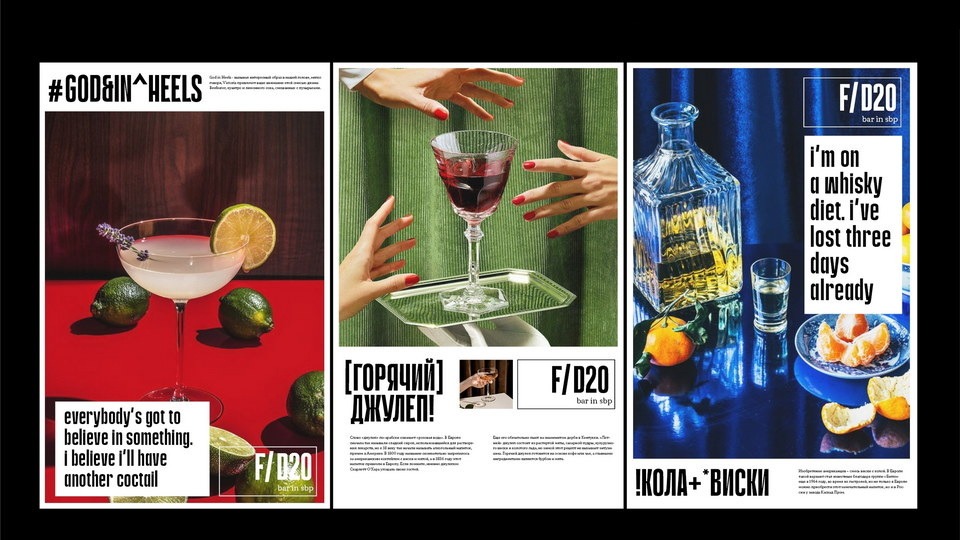
Damn Font is a contemporary geometric sans serif font. Elongated ovals, all letters are closed and tend to the same width. The character and expressiveness of the letters make Damn font a versatile tool suitable for branding. I use Some version of this font in literally every design. It is my Helvetica. but… with a modern retro sign painter vibe this sans is sure to sand out (but not too much) and add an unpalatable elevation to your design: Damn Font for branding, logos, social media, magazines, or whatever you are working on.
DAMN